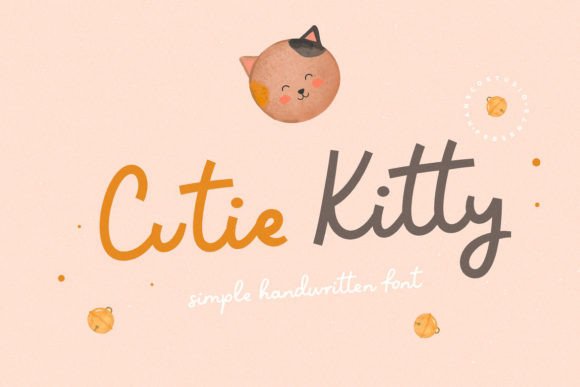
Journey into the realm of elegance and charm with Cutie Kitty Font, a creation of HansCo that exudes a captivating blend of simplicity, modernity, and the beauty of natural handwriting. This exquisite script font is not just a collection of letters; it's an expression of artistry waiting to be unleashed onto your creative canvas.
Picture this: a logo that dances with sophistication, a watermark that whispers your brand's story with an air of exclusivity, wedding invitations that carry the promise of love and forever in each stroke, quotes that come alive with personality, and taglines that leave an indelible mark on your audience. Cutie Kitty Font is your gateway to a world of visual enchantment.
Unlike ordinary fonts that blend into the background, Cutie Kitty Font demands attention with its distinctive style. Its enchanting curves and graceful lines evoke a sense of timeless elegance, while its natural handwriting charm adds a touch of warmth and authenticity to your designs.
Step into the spotlight with Cutie Kitty Font and let your creativity shine brighter than ever before. Its versatility knows no bounds, making it the perfect choice for a wide range of projects. From playful logos to heartfelt wedding invitations, from eye-catching quotes to unforgettable taglines, Cutie Kitty Font has the power to transform your words into works of art.
Don't settle for ordinary fonts that fade into obscurity. Embrace the allure of Cutie Kitty Font and embark on a creative journey where your designs will captivate and inspire. Its user-friendly nature ensures that even beginners can effortlessly weave their magic, while its endless possibilities will keep seasoned designers enthralled.
Cutie Kitty Font is more than just a font; it's an invitation to let your imagination run wild and create designs that speak volumes. Its delicate strokes and enchanting aura will leave your audience spellbound, making it the perfect choice for those who seek to make a lasting impression.